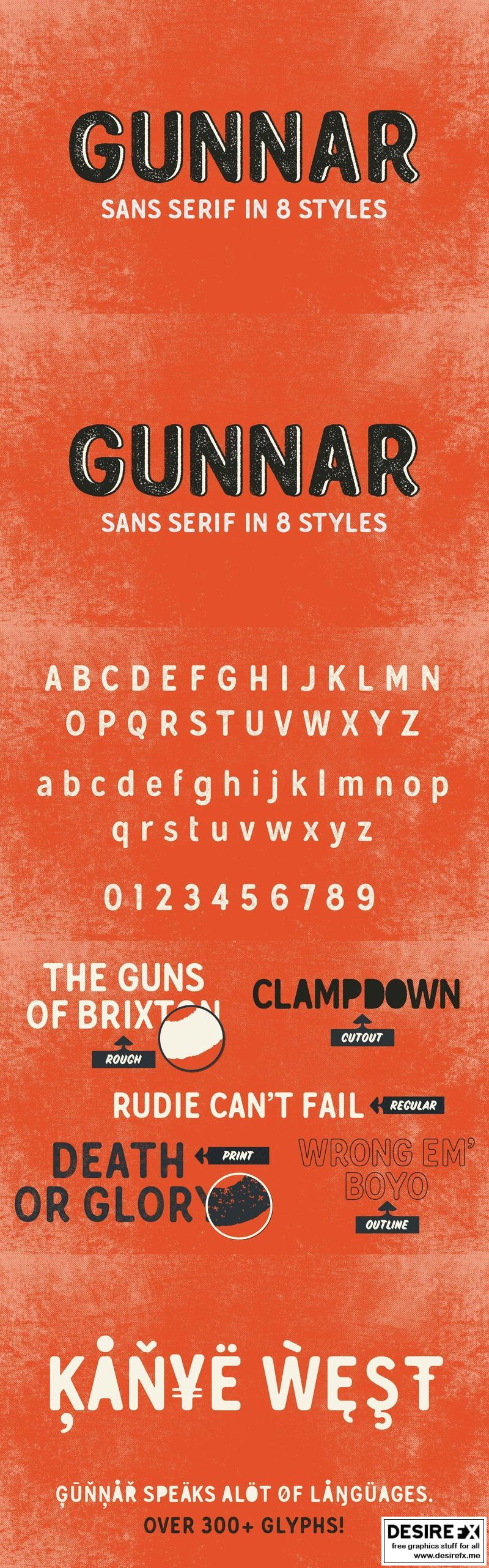
Gunnar PHTRLY
Gunnar Bold is a friendly sans serif typeface ideally suited for display, advertising, packaging, logotypes and signage.
It’s meant to recall the age of old printshops. When ink bled a little on the paper from the printing press – softening the lines and rounding the corners.
- 8 styles: Regular, Print, Cutout, Outline, Rough, Outline-Rough, Cutout-Rough, Outline-Cutout
- Gunnar contains complete basic latin, central- and western european characters as well as punctuations and currency symbols.